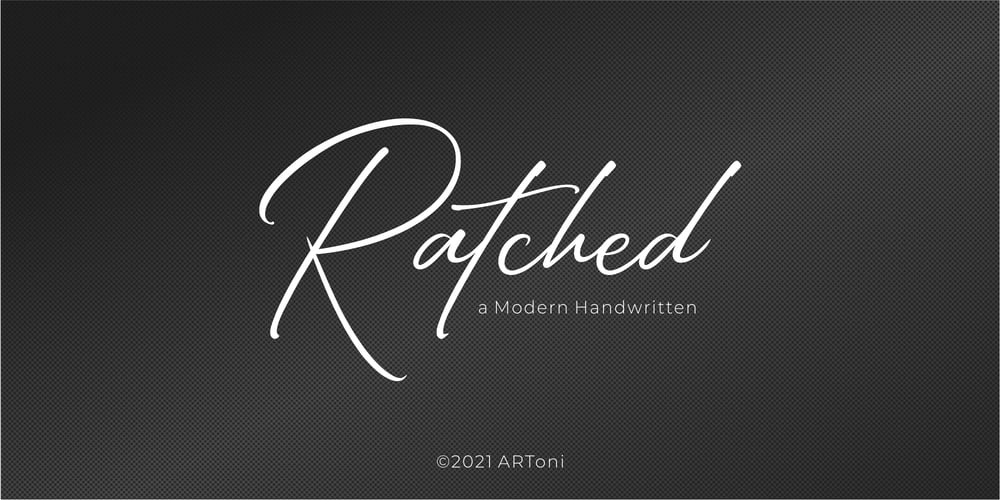
Ratched
Ratched font
Ratched Font Family was designed by Anthonie Van Hayu and published by ARToni. Ratched contains 1 styles and family package options. Ratched is a delicate and elegant handwritten font. Its distinct and well balanced letters make this font a masterpiece. Fall in love with its incredibly versatile style and use it to create spectacular designs!